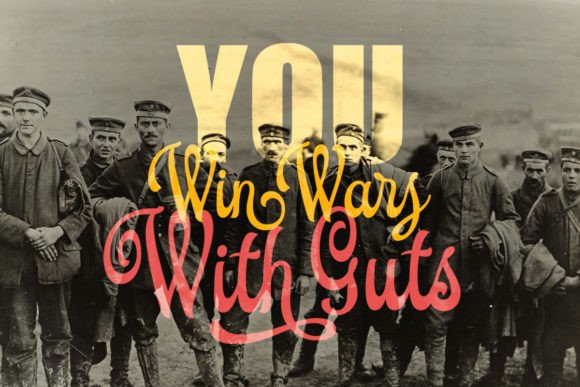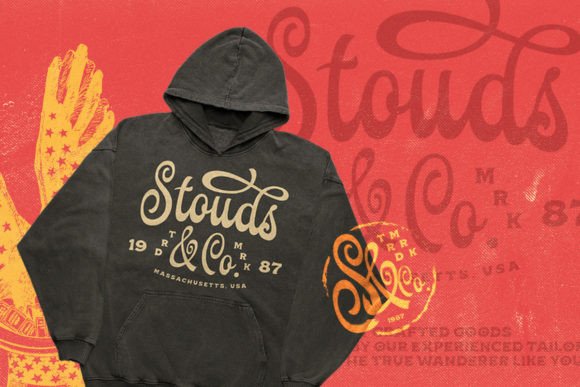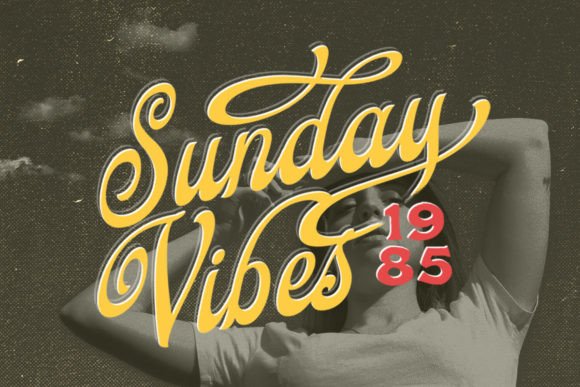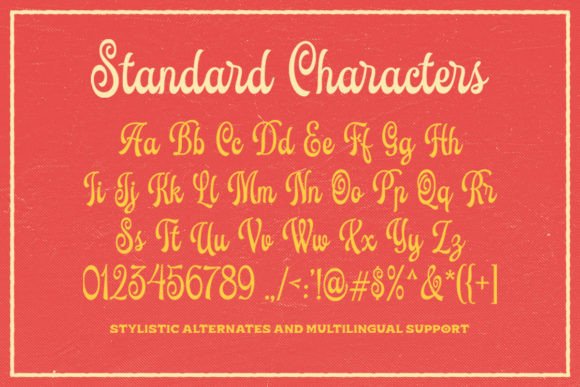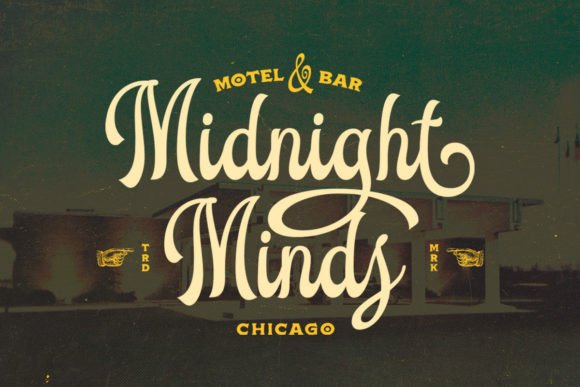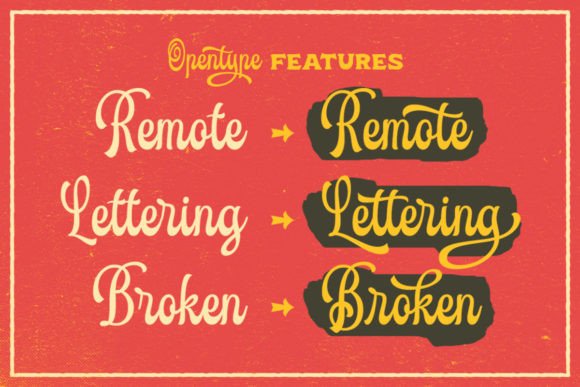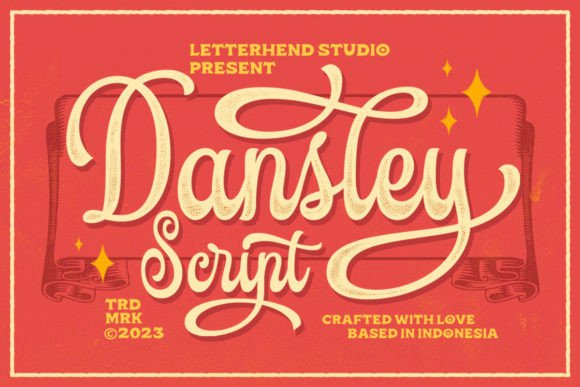
Discover the Timeless Elegance of Dansley Script Font
Are you looking for a font that adds a touch of nostalgia and sophistication to your designs? Look no further than Dansley Script Font. This vintage and stylish script font is perfect for designers and crafters who want to give their projects a timeless and elegant feel. In this article, we’ll explore the features and benefits of Dansley Script Font, and how it can elevate your designs to the next level.
What is Dansley Script Font?
Dansley Script Font is a beautifully crafted script font that features flowing curves and elegant flourishes. Its vintage charm is reminiscent of classic calligraphy, making it perfect for designs that require a touch of nostalgia and sophistication. The font is designed to be highly legible, making it suitable for a wide range of applications, from branding and invitations to packaging and advertising.
Key Features of Dansley Script Font
- Vintage and Stylish: Dansley Script Font has a unique and stylish design that adds a touch of elegance to any project.
- Flowing Curves: The font features beautiful flowing curves that give it a sense of movement and fluidity.
- Elegant Flourishes: The font includes elegant flourishes that add a touch of sophistication and refinement.
- Highly Legible: Despite its ornate design, Dansley Script Font is highly legible, making it suitable for a wide range of applications.
- Timeless Appeal: The font’s vintage charm gives it a timeless appeal that will never go out of style.
Uses for Dansley Script Font
Dansley Script Font is a versatile font that can be used for a wide range of design projects. Here are some ideas to get you started:
- Branding: Use Dansley Script Font to create a unique and memorable brand identity that stands out from the crowd.
- Invitations: Add a touch of elegance and sophistication to your invitations with Dansley Script Font.
- Packaging: Use the font to create eye-catching packaging that stands out on store shelves.
- Advertising: Dansley Script Font is perfect for creating elegant and sophisticated advertisements that grab attention.
- Stationery: Use the font to create beautiful stationery, such as letterheads, business cards, and thank-you cards.
Tips for Using Dansley Script Font
Here are some tips for getting the most out of Dansley Script Font:
- Use it sparingly: Dansley Script Font is a bold and elegant font, so use it sparingly to avoid overwhelming your design.
- Pair it with a sans-serif font: Pair Dansley Script Font with a sans-serif font to create a beautiful contrast that adds visual interest to your design.
- Experiment with colors: Dansley Script Font looks great in a range of colors, so experiment with different colors to find the one that works best for your design.
- Pay attention to spacing: Make sure to pay attention to spacing when using Dansley Script Font, as it can be a bit ornate. Adjust the spacing to create a clean and elegant look.
Dansley Script Font is a beautiful and elegant script font that adds a touch of nostalgia and sophistication to any design. Its flowing curves and elegant flourishes make it perfect for designs that require a touch of vintage charm. With its highly legible design and timeless appeal, Dansley Script Font is a versatile font that can be used for a wide range of applications. Whether you’re a designer or crafter, Dansley Script Font is a great addition to your font collection.